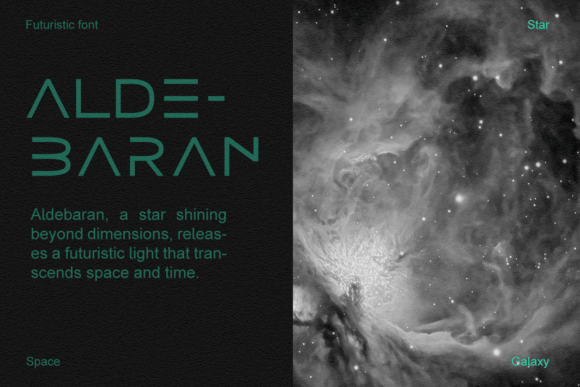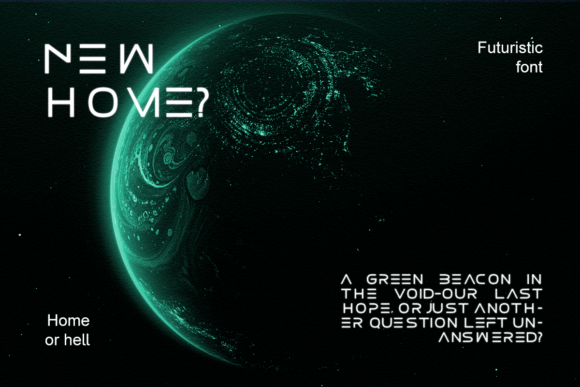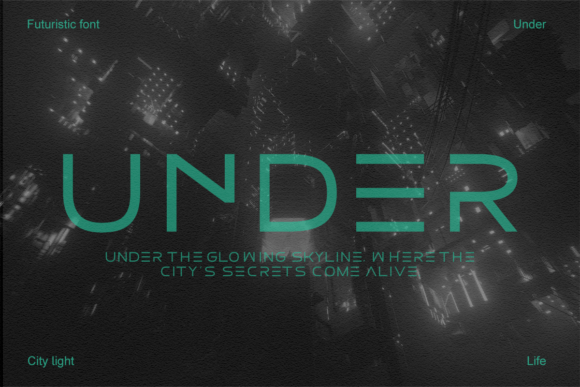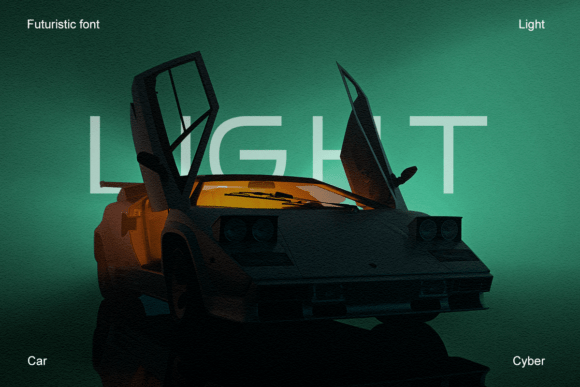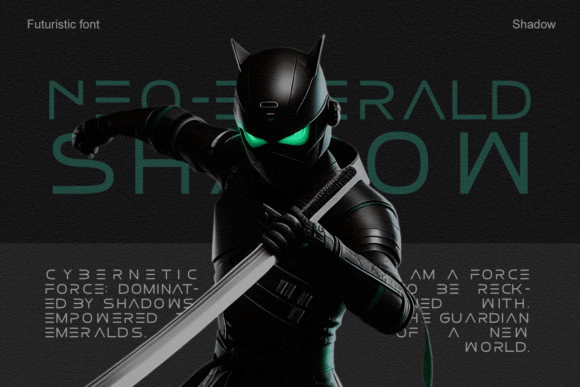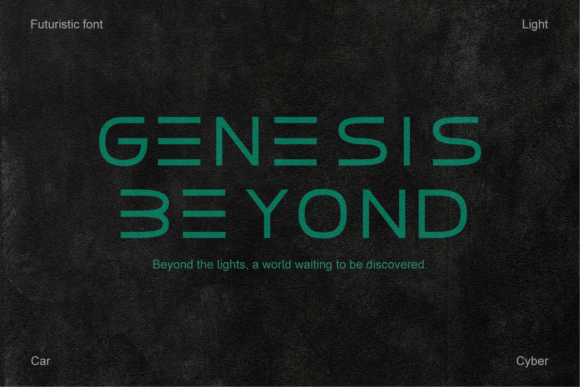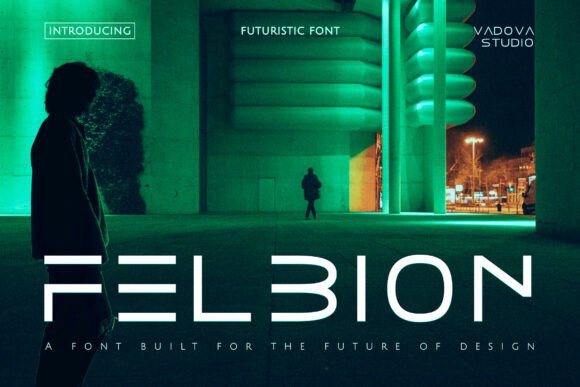
Felbion Font: Elevate Your Designs to Cosmic Heights
In the realm of typography, fonts play a pivotal role in shaping the visual identity of a project. For creators aiming to push the boundaries of imagination, especially in sci-fi storytelling, space-themed visuals, and digital-forward branding, the Felbion font emerges as a game-changer. This bold, futuristic typeface is meticulously designed to bring a cybernetic vibe to your designs, making it the perfect choice for those looking to venture beyond Earth’s horizon.
The Essence of Felbion Font
Felbion is not just a font; it’s an experience. Its clean geometry, sharp edges, and high-tech aesthetic are crafted to deliver clarity and visual intensity. This makes it an ideal choice for a wide range of applications, including game titles, cinematic posters, UI/UX interfaces, and concept-driven projects. The font’s design is inspired by the futuristic and the unknown, providing a visual language that speaks to the adventurous and the imaginative.
Key Features of Felbion Font
- Bold and Futuristic Design: Felbion’s bold strokes and futuristic design make it stand out in any project, giving it a unique and captivating look.
- Sci-Fi and Space-Themed: Perfectly suited for sci-fi storytelling and space-themed visuals, Felbion brings a cosmic vibe to your designs.
- Multilingual Support: With support for multiple languages, Felbion is versatile and can be used in a variety of cultural and linguistic contexts.
- Cybernetic Aesthetic: The font’s cybernetic look and feel are ideal for digital-forward branding and projects that require a high-tech edge.
- High Versatility: Whether it’s for game titles, cinematic posters, or UI/UX interfaces, Felbion’s versatility knows no bounds.
Applications of Felbion Font
The applications of Felbion are vast and varied. Here are some of the most notable uses:
- Game Titles: Give your game a title that stands out with Felbion’s bold and futuristic design.
- Cinematic Posters: Create posters that capture the essence of your cinematic project with a font that’s both bold and elegant.
- UI/UX Interfaces: Enhance the user experience with a font that’s not only visually appealing but also highly legible.
- Concept-Driven Projects: For projects that require a visual language that’s out of this world, Felbion is the perfect choice.
Why Choose Felbion Font?
In a world where visual communication is key, choosing the right font can make all the difference. Here are a few reasons why Felbion stands out:
- Unique Design: Felbion’s unique design sets it apart from other fonts, making your project instantly recognizable.
- Legibility: Despite its bold and futuristic design, Felbion maintains high legibility, ensuring your message is always clear.
- Versatility: From digital platforms to print, Felbion’s versatility ensures it performs well across different mediums.
Felbion font is more than just a typeface; it’s a tool for creators to express their most ambitious ideas. With its bold futuristic design, clean geometry, and high-tech aesthetic, Felbion is poised to become a favorite among designers and crafters looking to push the boundaries of their creativity. Whether you’re working on a sci-fi game, a cinematic project, or a digital brand, Felbion offers the perfect blend of style, clarity, and visual intensity to bring your vision to life.
So, if you’re ready to elevate your designs to cosmic heights and venture beyond Earth’s horizon, Felbion is the perfect companion for your creative journey.